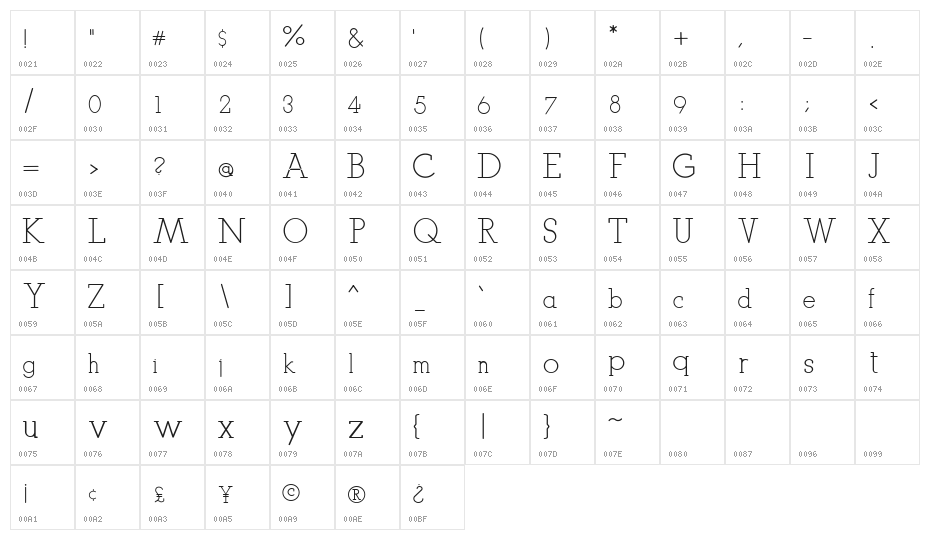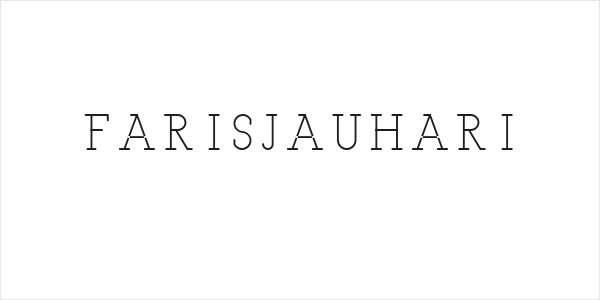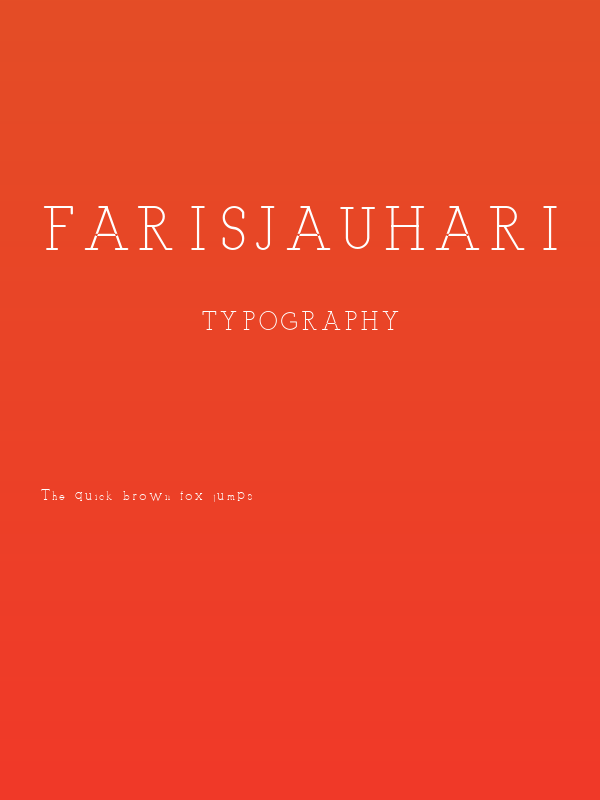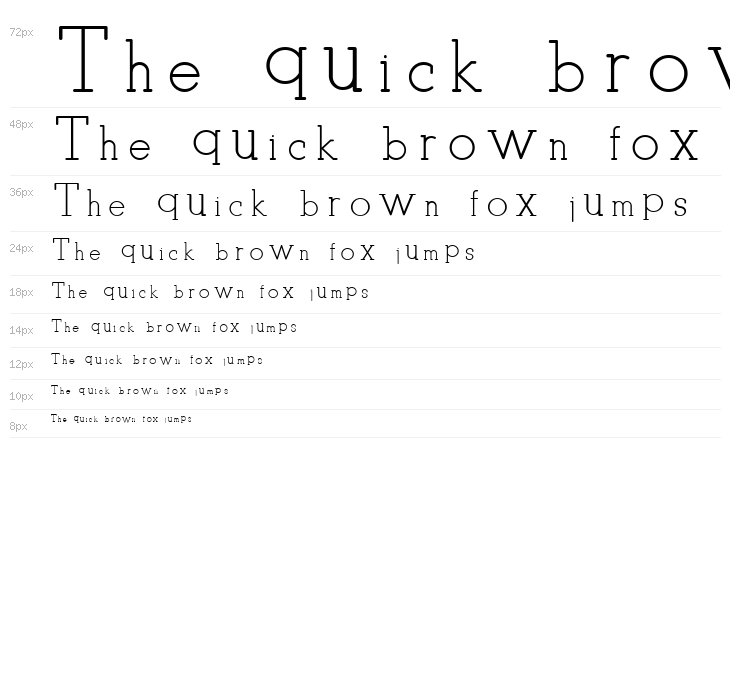
FARISJAUHARI Font
FARISJAUHARI Description
This font features a clean and elegant design with a modern twist. The characters are slightly elongated, giving them a sophisticated appearance. The uppercase letters are bold and prominent, while the lowercase letters maintain a consistent flow with subtle curves. The numerals are distinct and easy to read, making them suitable for various applications. Special characters are well-integrated, maintaining the overall aesthetic. The font's thin strokes and minimalistic style make it versatile for both digital and print media.